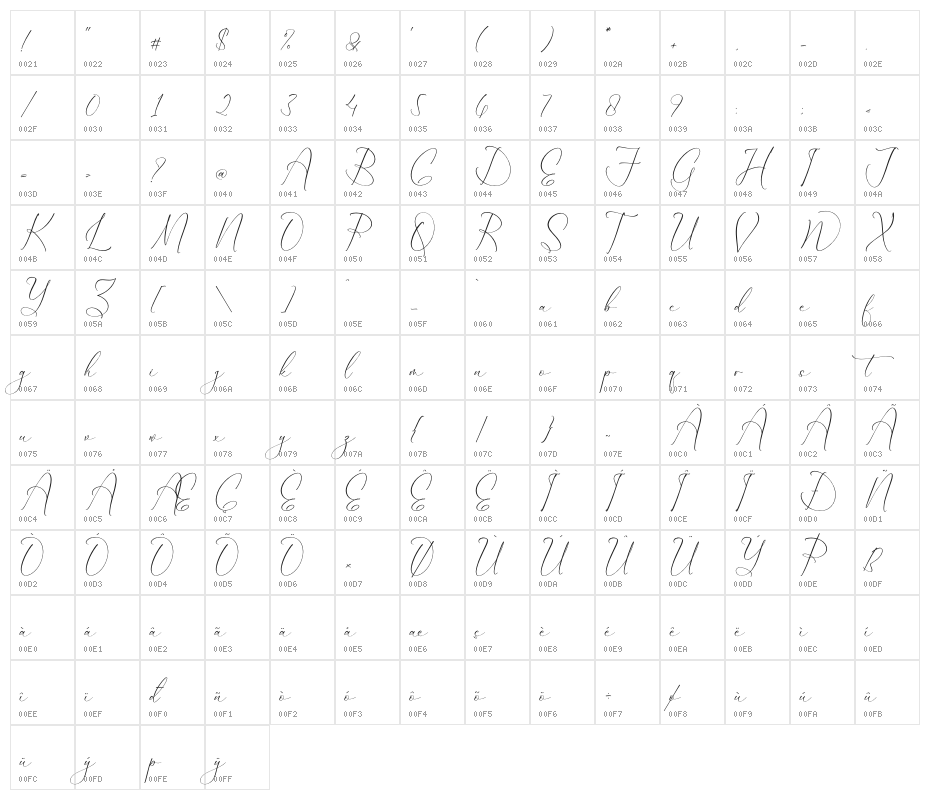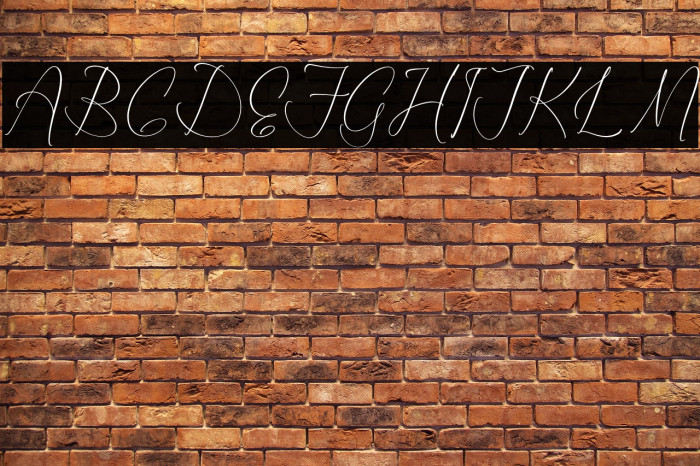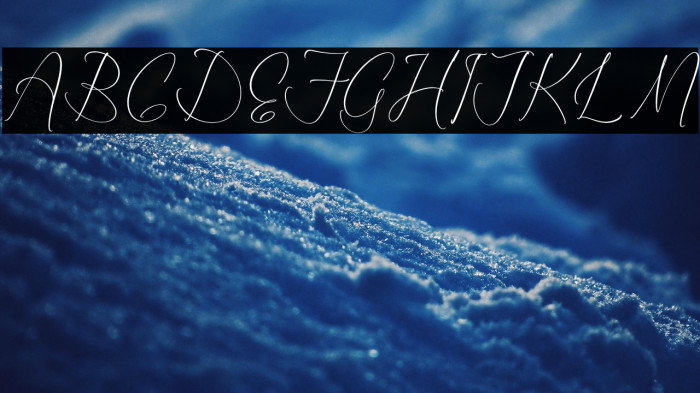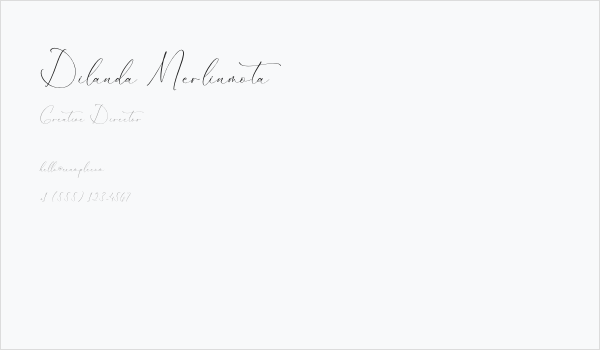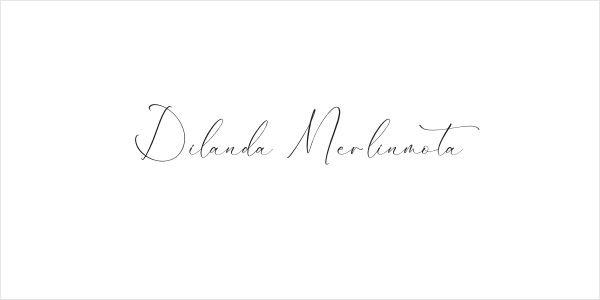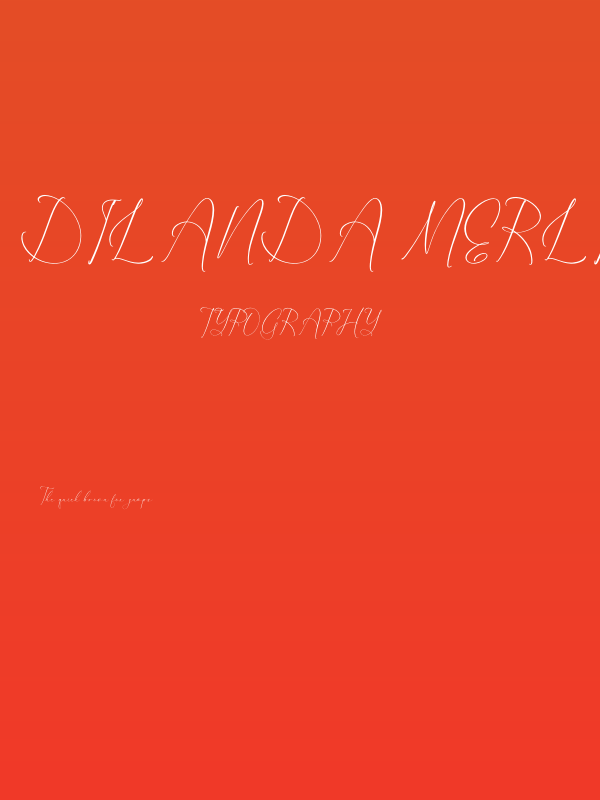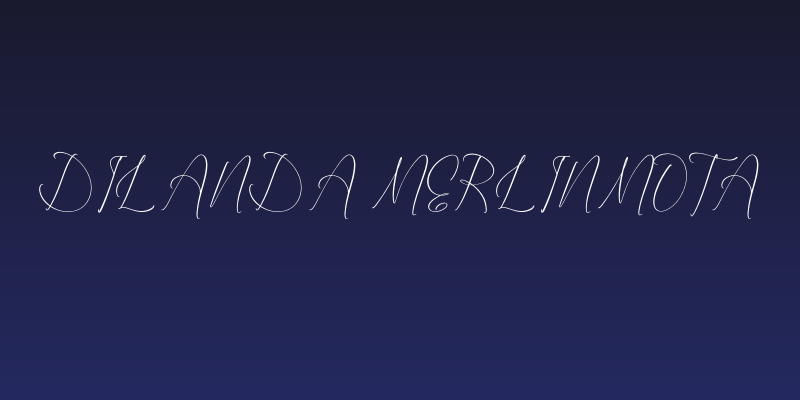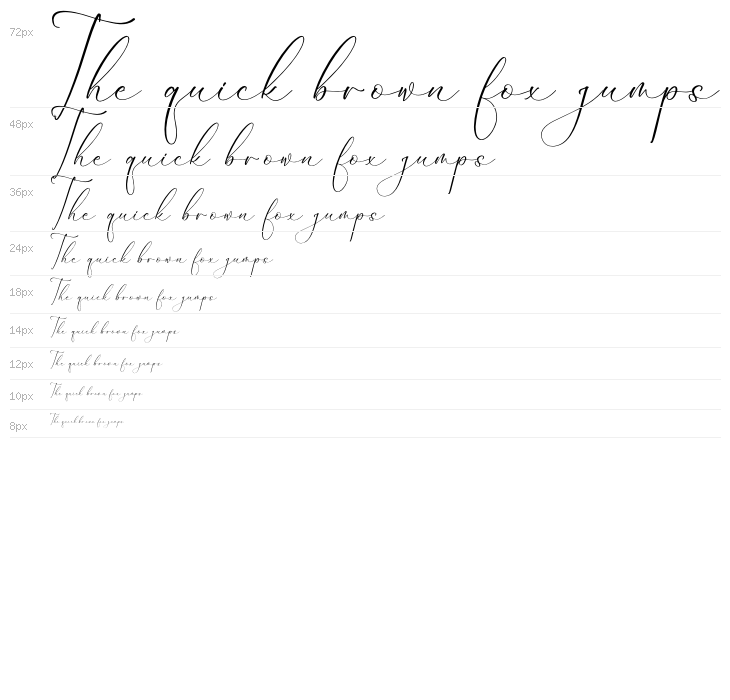
Dilanda Merlinmota Font
Dilanda Merlinmota Description
Elegant script font with flowing, connected letters and a calligraphic style.
| Overall Style | Elegant, Calligraphic |
| Use Case | Invitations, Branding, Decorative text |
| Proposed Projects | Wedding invitations, elegant branding, formal event materials. |